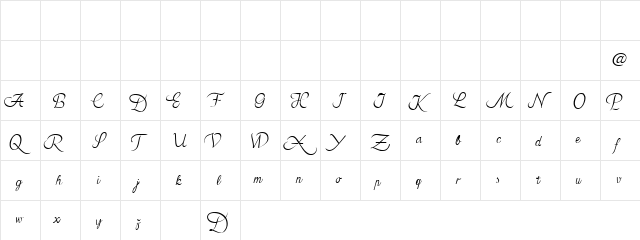
Azariel Demo Regular
Design Context for Azariel Demo Typeface
Azariel Demo is a composed and adaptable typeface that performs quietly and consistently across a wide range of design contexts.